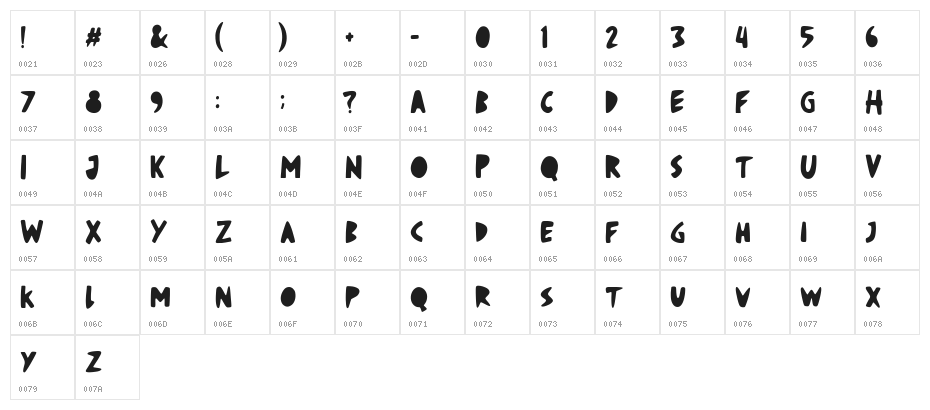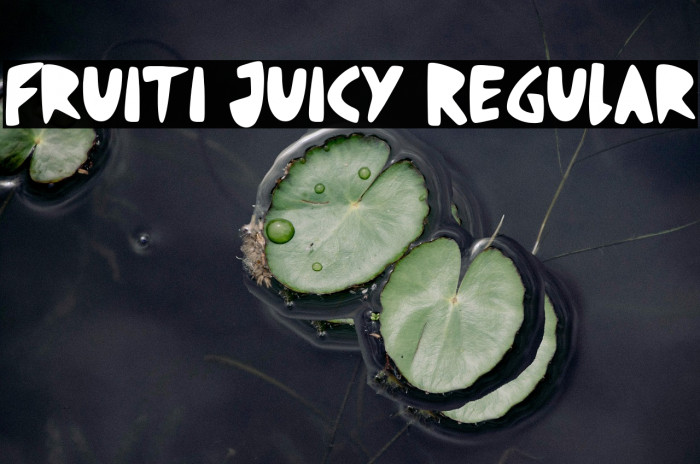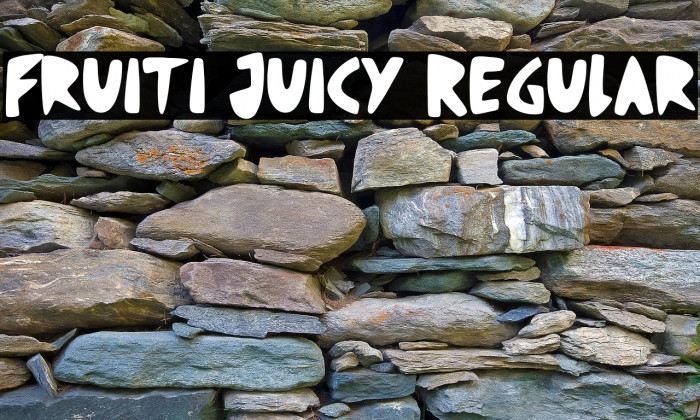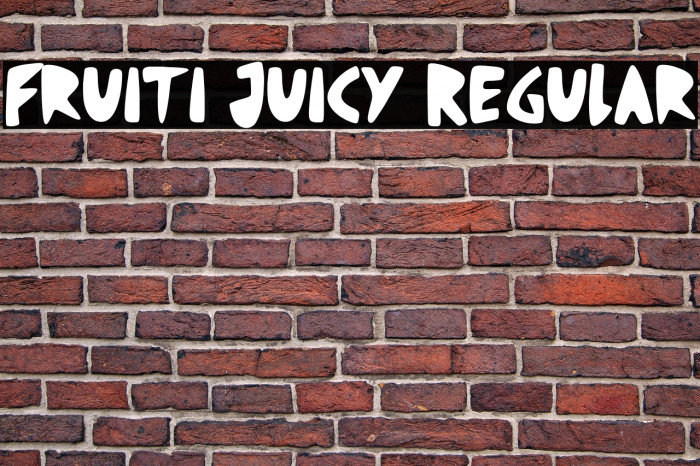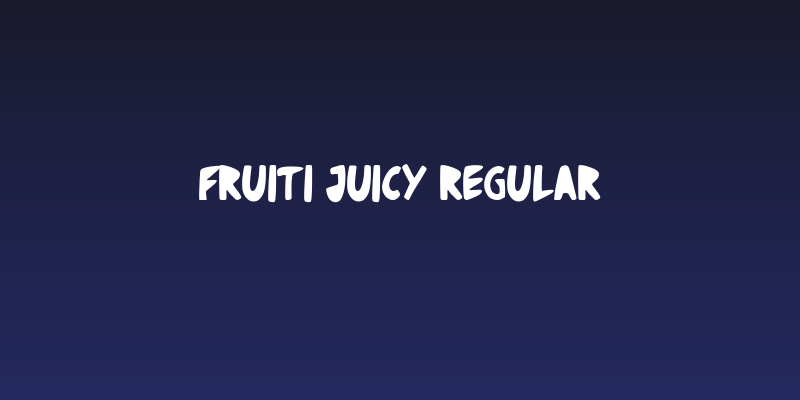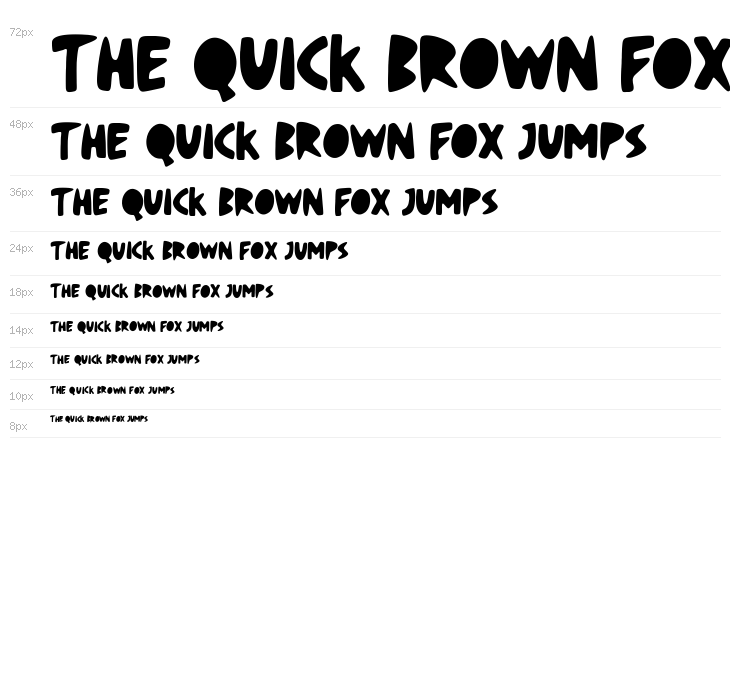
Fruiti Juicy Regular Font
Fruiti Juicy Regular Description
This playful and bold font features a unique, hand-drawn style with a lively and energetic appearance. The letters are thick and rounded, giving them a friendly and approachable feel. The uppercase and lowercase characters maintain a consistent weight, contributing to a cohesive look. The numbers and special characters are designed to match the whimsical nature of the alphabet, making them suitable for creative projects. The overall design is reminiscent of a fun, cartoonish aesthetic, perfect for capturing attention and adding a touch of personality.
| Overall Style | Playful, Cartoonish, Fun |
| Proposed Projects | Ideal for children's books, playful branding, posters, and creative invitations. |